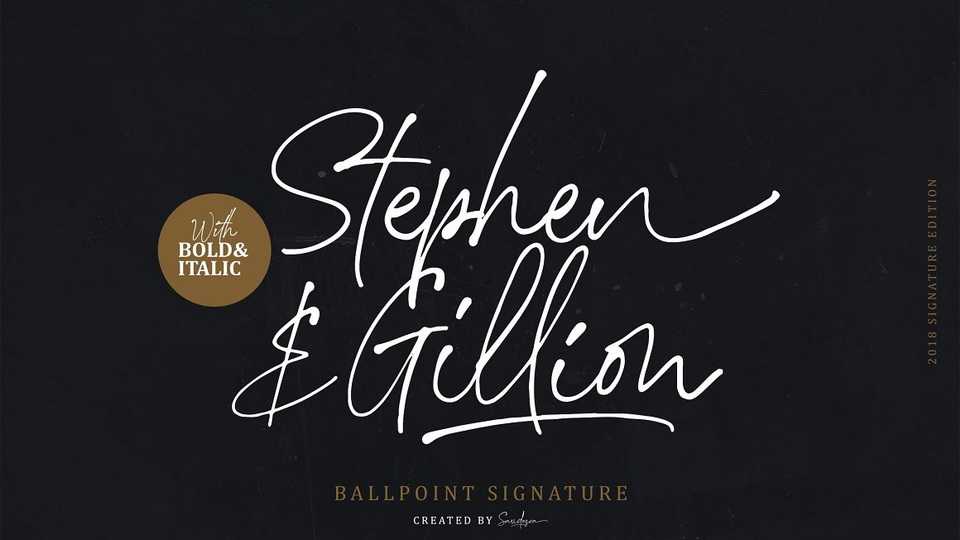
Download Stephen & Gillion font, a signature script to create your own customized signature or logo design. Stephen & Gillion is a signature font that you can use to make a logo for branding, beautiful fashion design, suitable for wedding invitation, or handwritten quote.